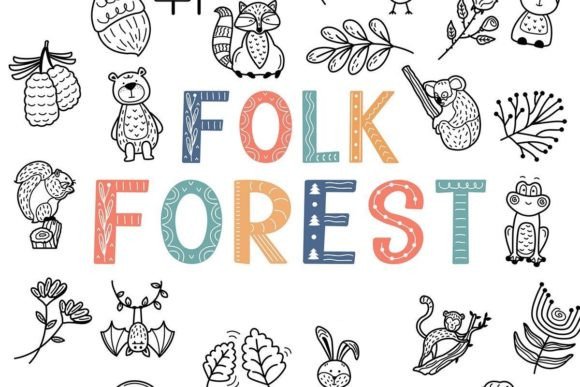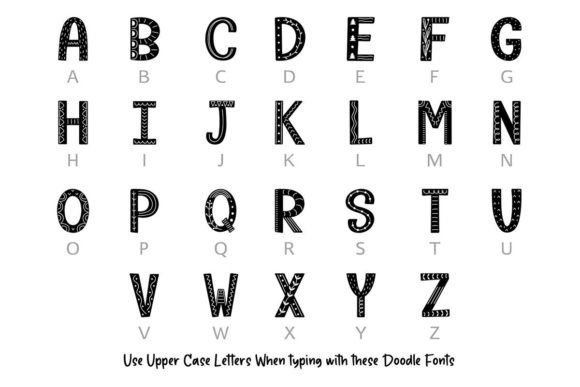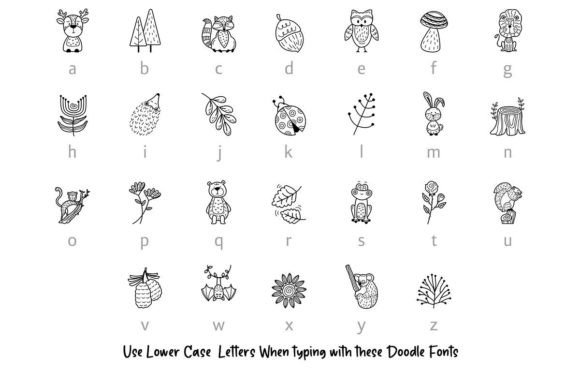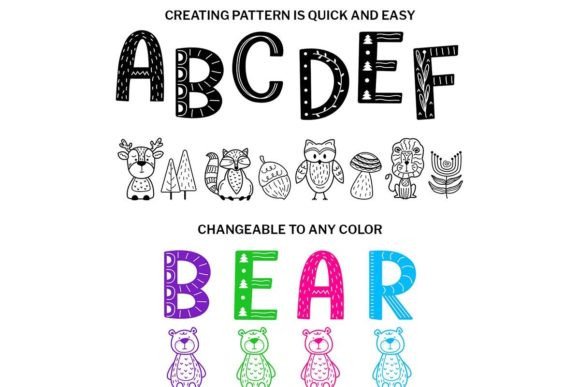
Folk Forest Font
About the Folk Forest Font
From logos to headlines, the Folk Forest Font is the perfect choice for making a lasting impression. Folk Forest is a fun and lovely dingbats font. Add it confidently to your projects, and you will love the results.
Folk Forest’s playful nature makes it ideal for children’s books, whimsical branding projects, or decorative elements in packaging design. It excels in short bursts of text, such as headings, labels, and short captions, where its unique charm shines. However, its decorative style is less suitable for body text or UI elements requiring high readability.
The font’s friendly and approachable personality pairs well with clean sans-serif fonts like Open Sans for body copy or a more geometric sans-serif like Futura for a modern contrast. For a touch of elegance, consider pairing it with a classic serif like Garamond. Avoid pairing it with other highly decorative fonts, as this can lead to visual clutter.
Folk Forest is ultimately a fun and approachable typeface best used sparingly to add a touch of whimsical personality to a design. Its strength lies in its ability to create visual interest and delight, not in its ability to deliver large amounts of legible text.
Folk Forest Font Usage Examples
Folk Forest Font Example